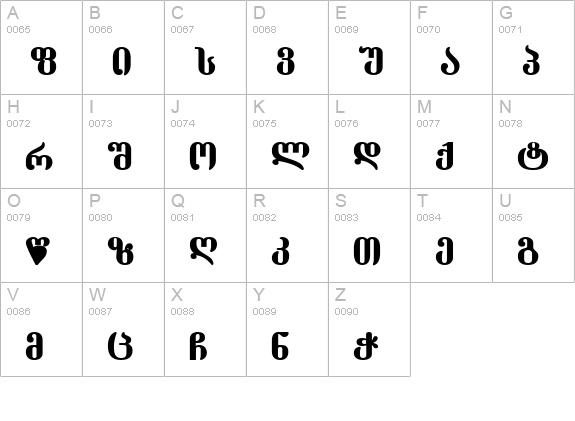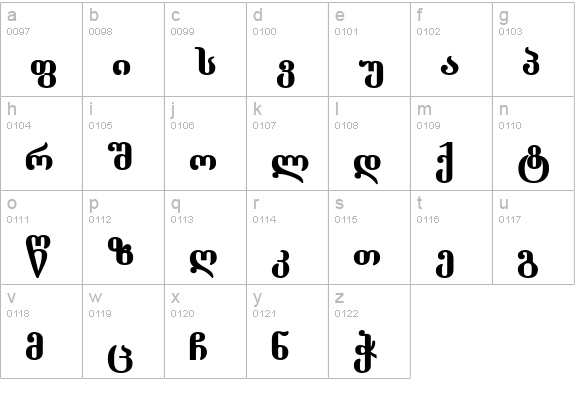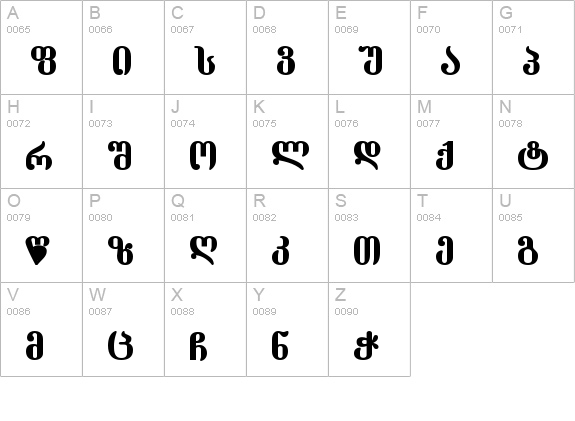
Dumbadze-ITV Bold Font Details
Dumbadze-ITV Bold is a strong, high-contrast variant in the Dumbadze typeface family \xE2\x80\x94 well suited to headlines, attention-grabbing titles, and strong calls-to-action.
Dumbadze-ITV Bold font is a bold and modern typeface that exudes confidence and sophistication. With its clean lines and strong presence, this font is perfect for making a statement in your designs. Whether you're creating posters, logos, or branding materials, Dumbadze-ITV Bold will help you stand out from the crowd. The best part? Dumbadze-ITV Bold font is available for free download at FontsMarket.com. This means you can easily access this stylish font without breaking the bank. Don't miss out on the opportunity to elevate your projects with the sleek and impactful Dumbadze-ITV Bold font. Download it today and unleash your creativity!